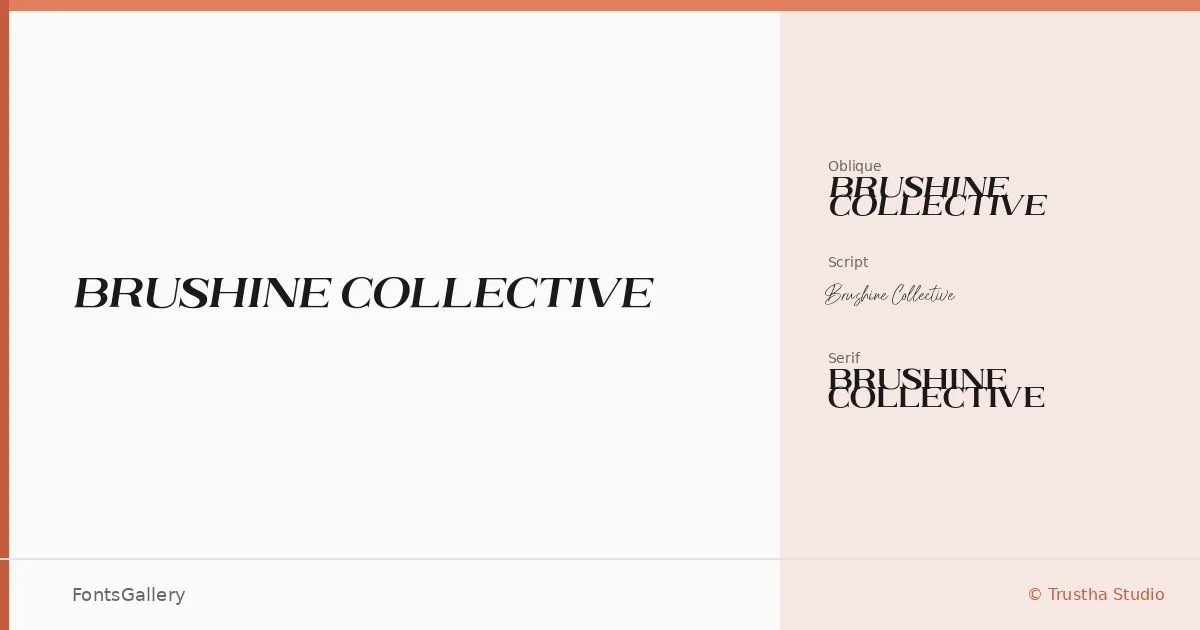
About Brushine Collective Font
Three distinct cuts, one coherent sensibility — that is what Bagas Ardiatma of Trustha Studio has built here. The family arrives as a trio: an Oblique, a Script, and a Serif, each released as a single Regular weight, and each carrying a calligraphic warmth that reads as considered rather than decorative. The Script in particular has the kind of controlled flow you see in lettering drawn by hand before it is ever digitized.
Across all three cuts the mood is consistently classic and romantic, with a luxury register that leans toward editorial elegance rather than novelty. The Serif anchors the set structurally, the Oblique introduces graceful slant and energy, and the Script brings a fluid, intimate quality to headlines and logotype compositions. All three are delivered in both TTF and OTF formats and cover the Latin alphabet. Used together or individually, the forms reward spacing attention — these are not faces to rush through.
The natural home for this family is anywhere that tone matters as much as information: wedding stationery, invitation cards, luxury branding, logo lockups, and magazine display headings are the contexts it was drawn for. When you need a clean counterpart to balance the expressiveness of the script and serif cuts, the listed pairings — Helvetica, Aileron, and Abrade for neutrality, or Ballmain and Batoshi for complementary character — each offer a different kind of contrast worth testing.